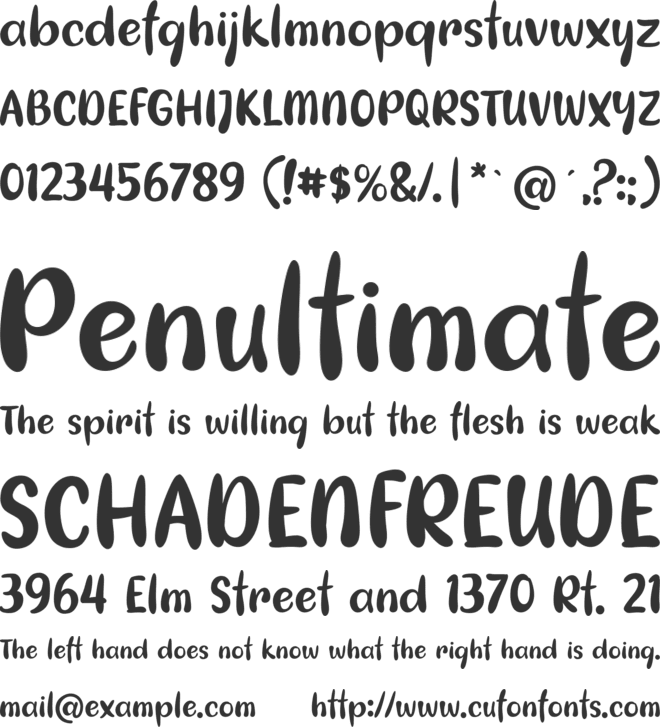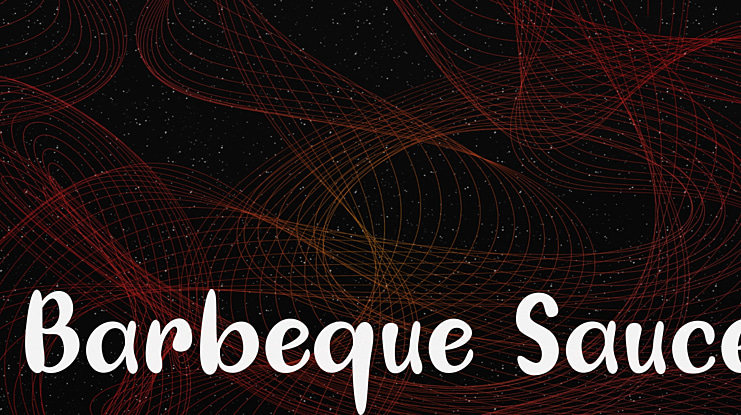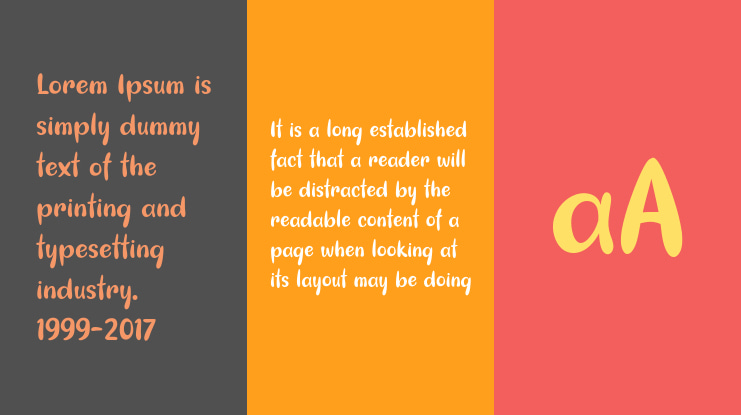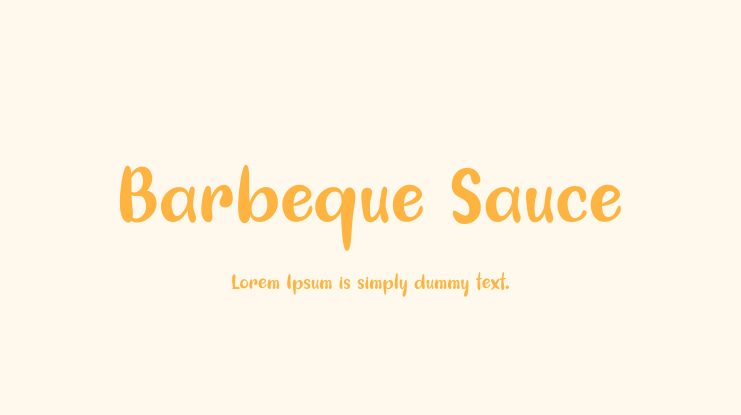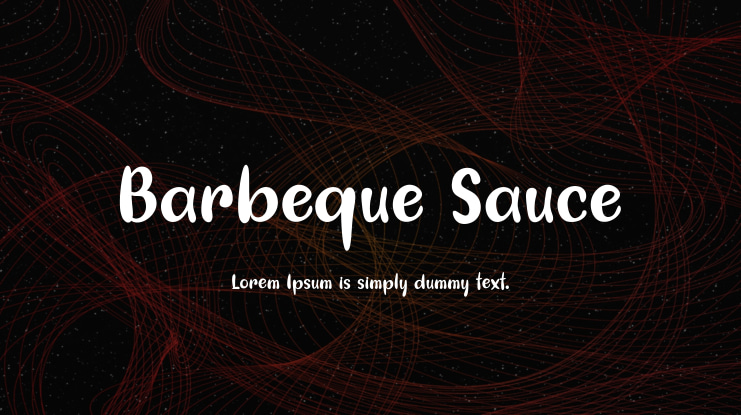
Barbeque Sauce Font
Barbeque Sauce is a simple display font.
Its simple characters make this typeface a must-have in your fonts library!
Use it to express your creative and playful design ideas.